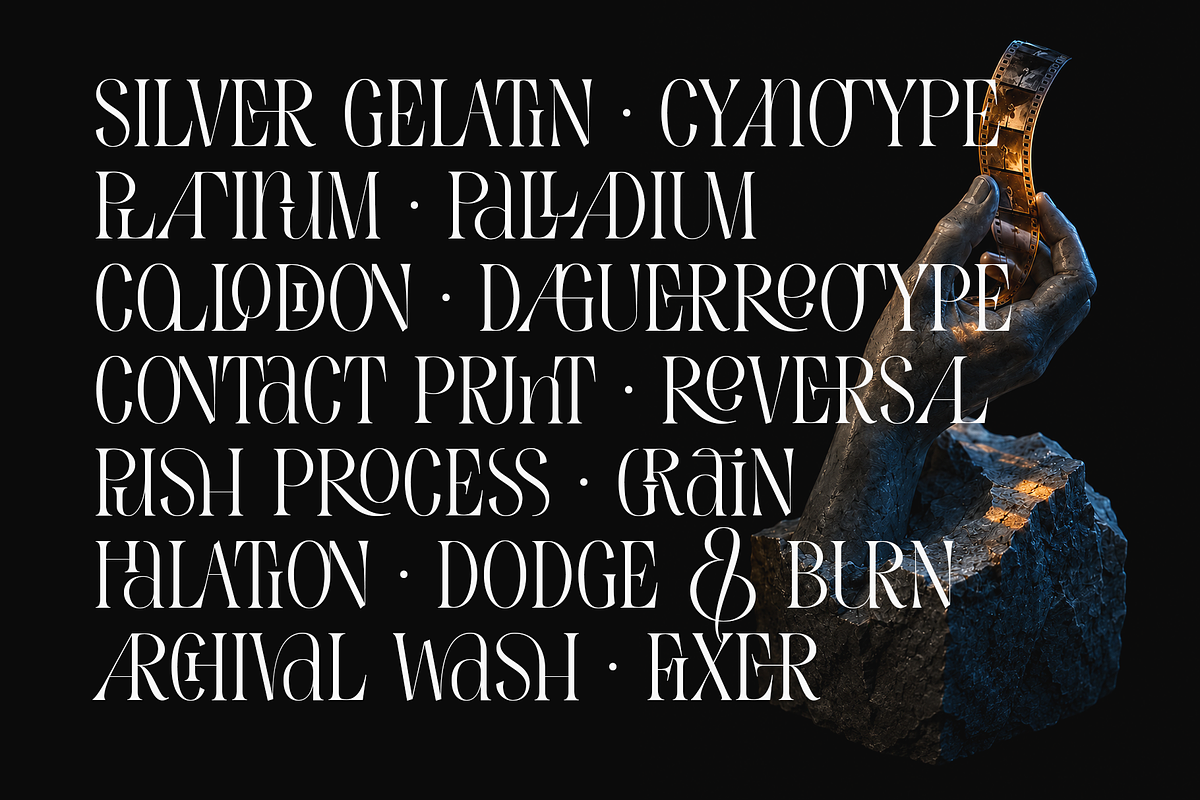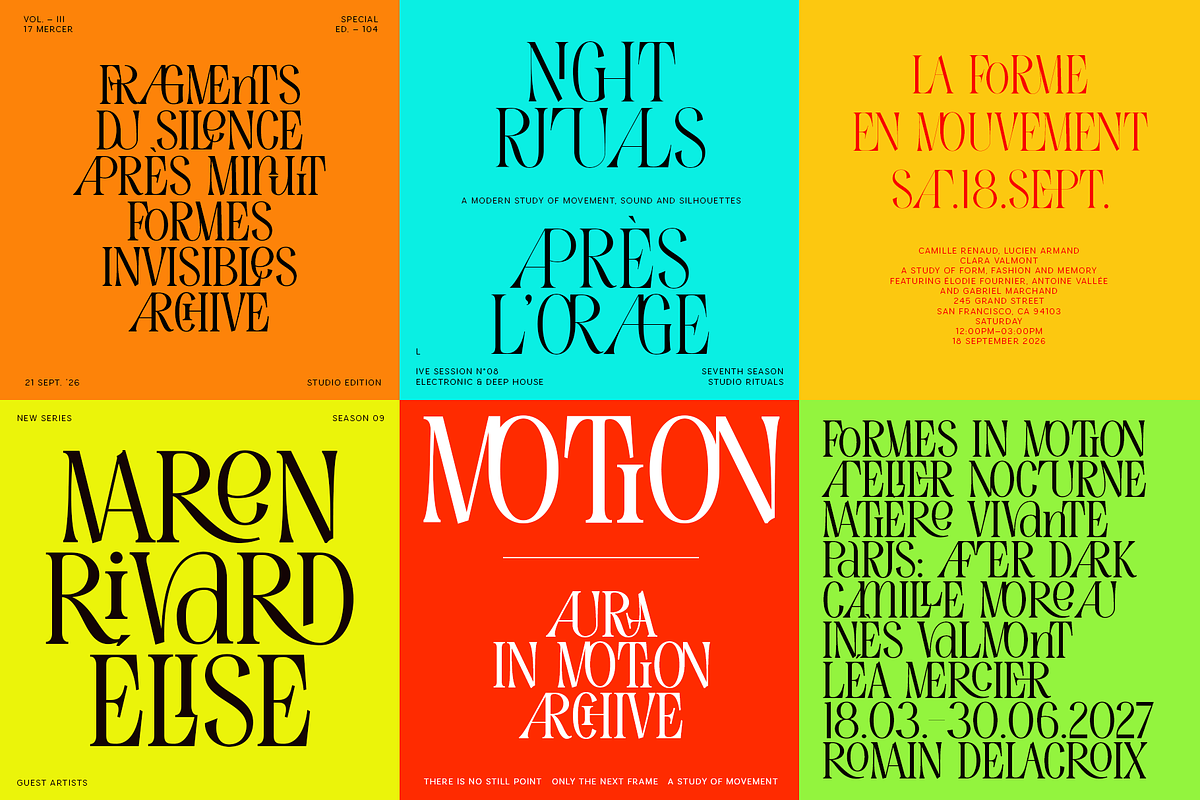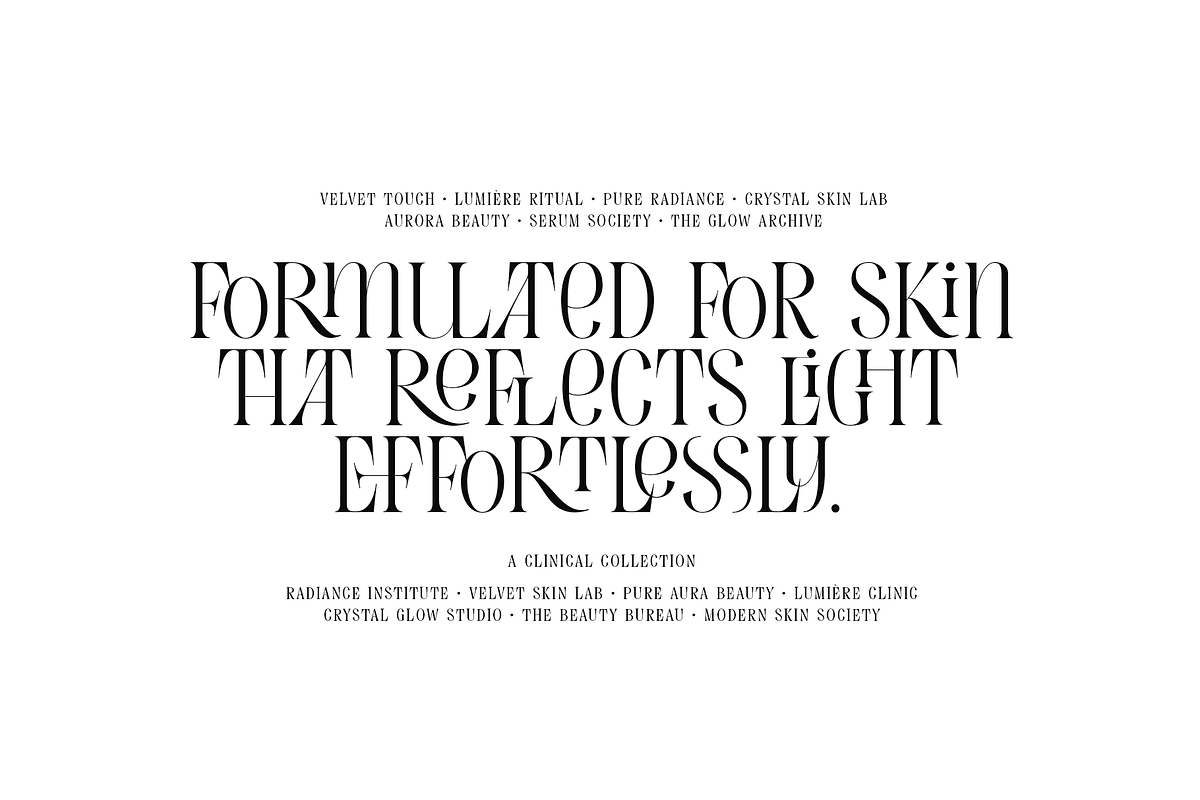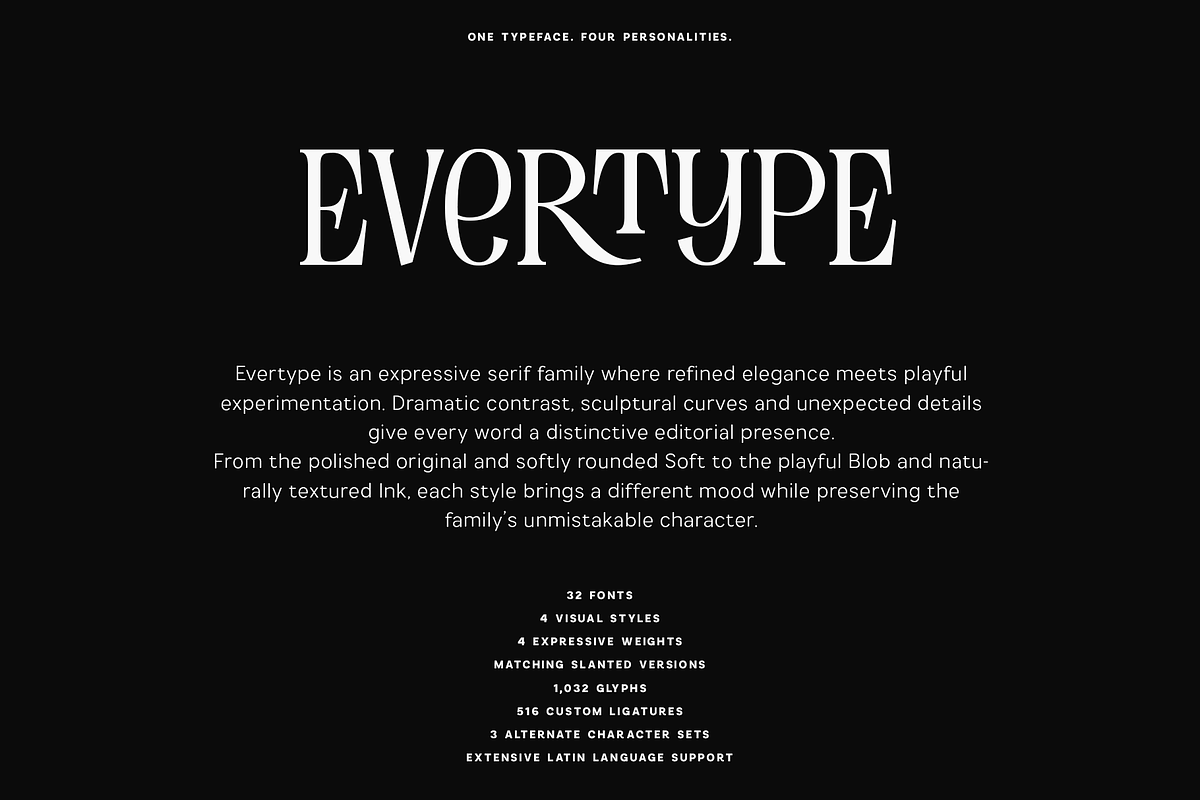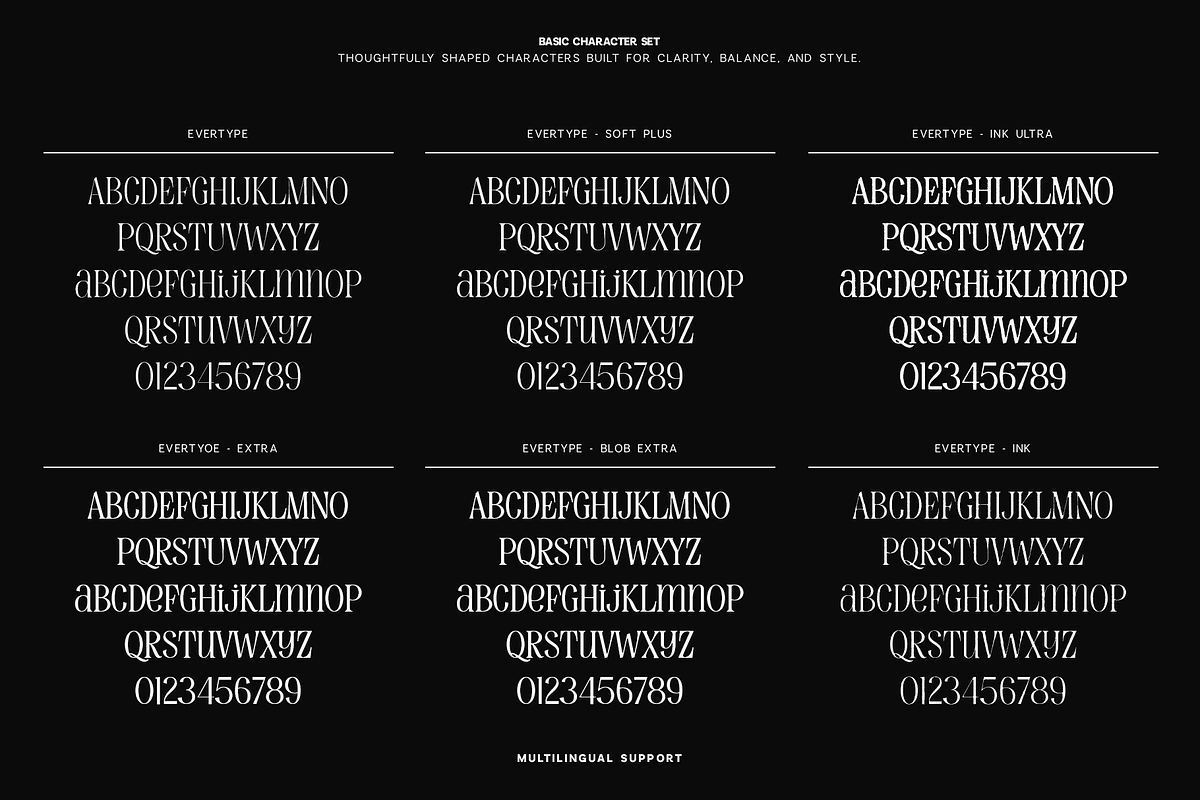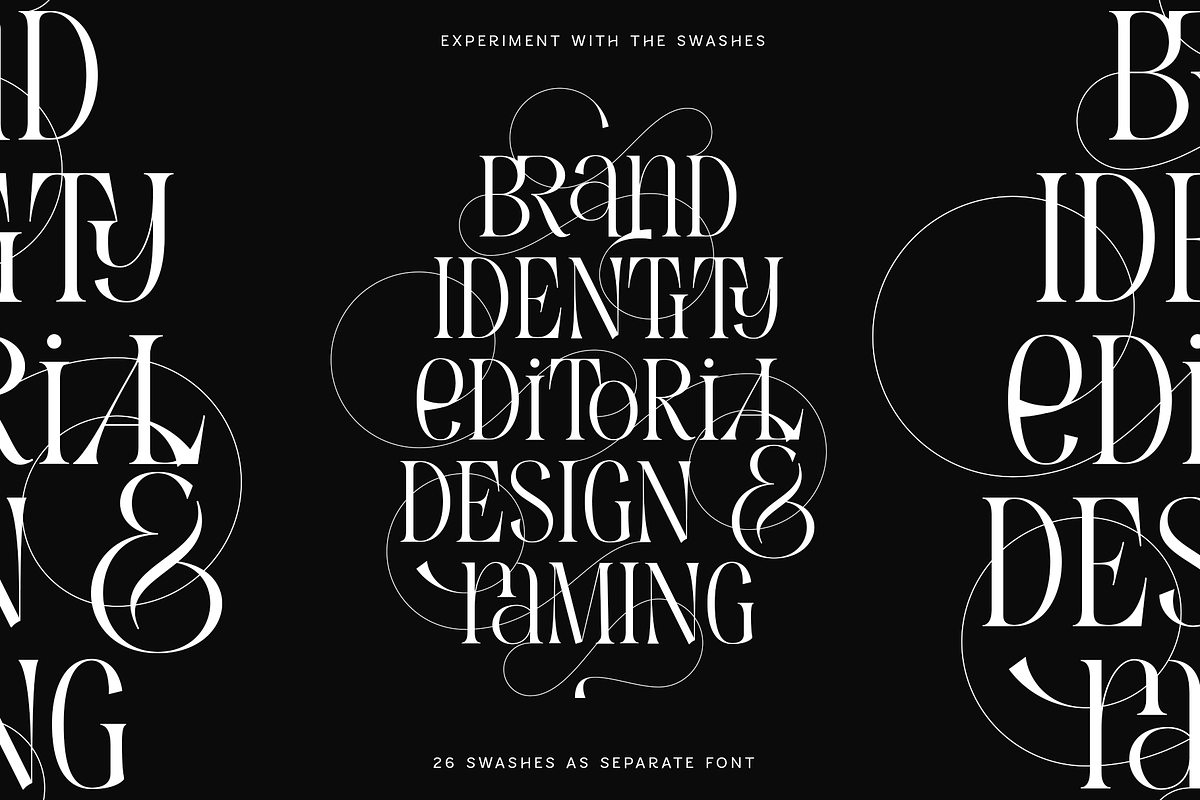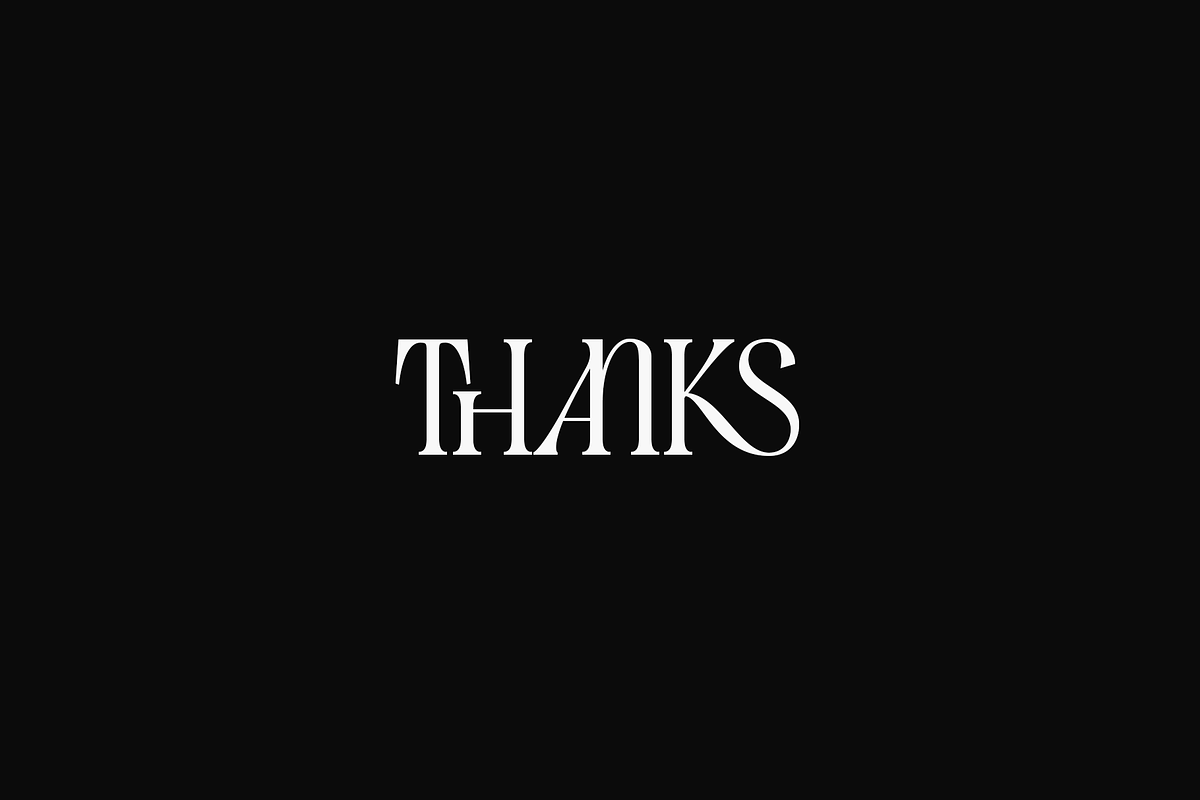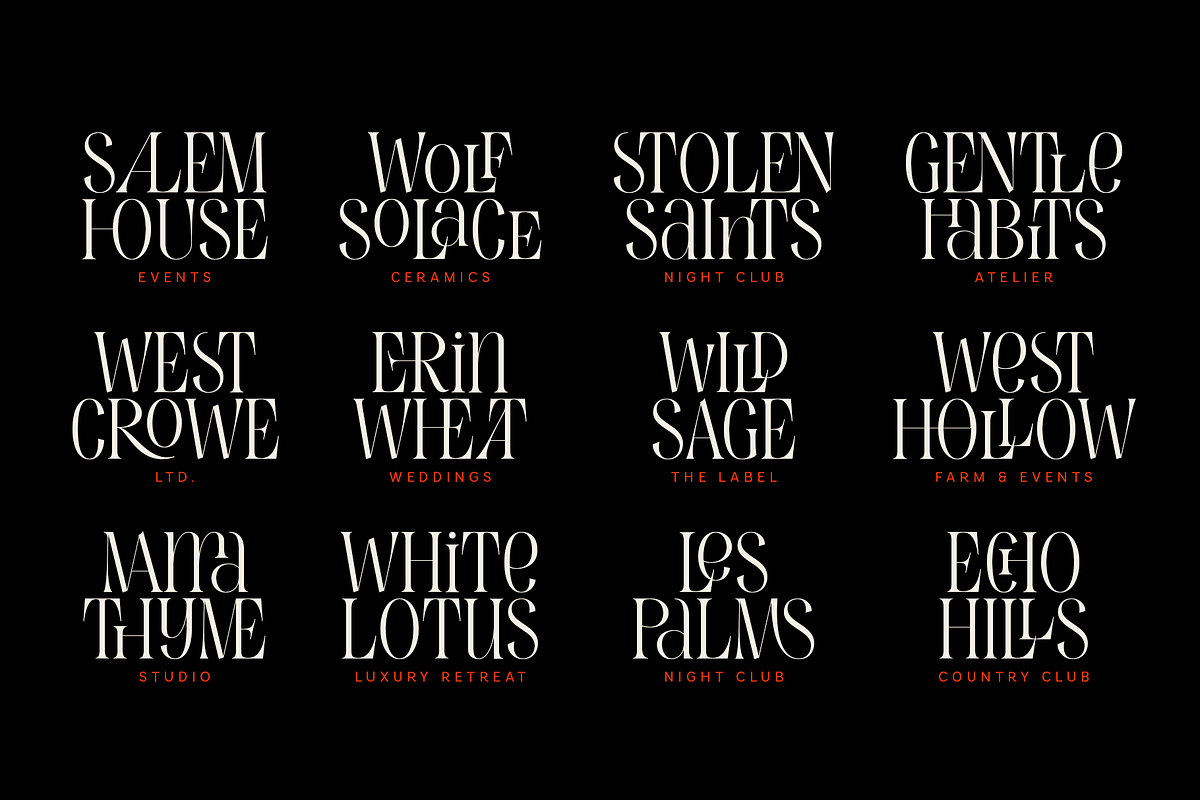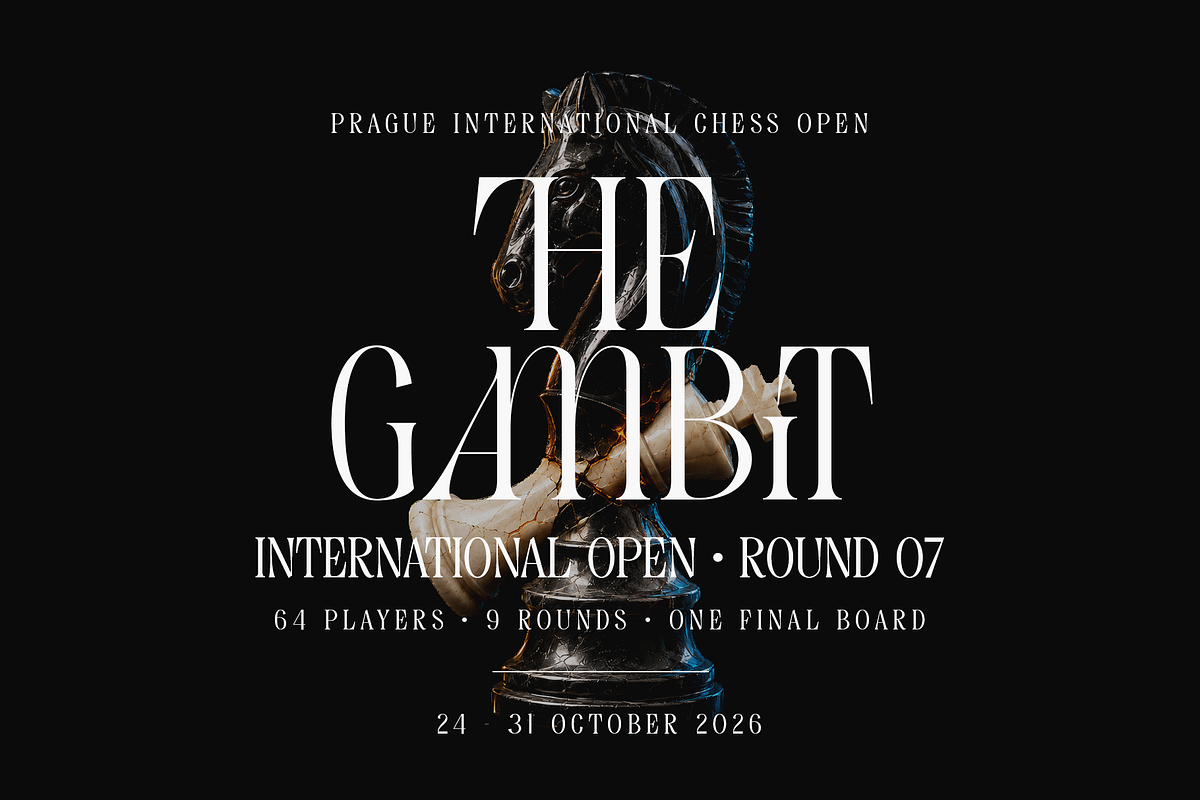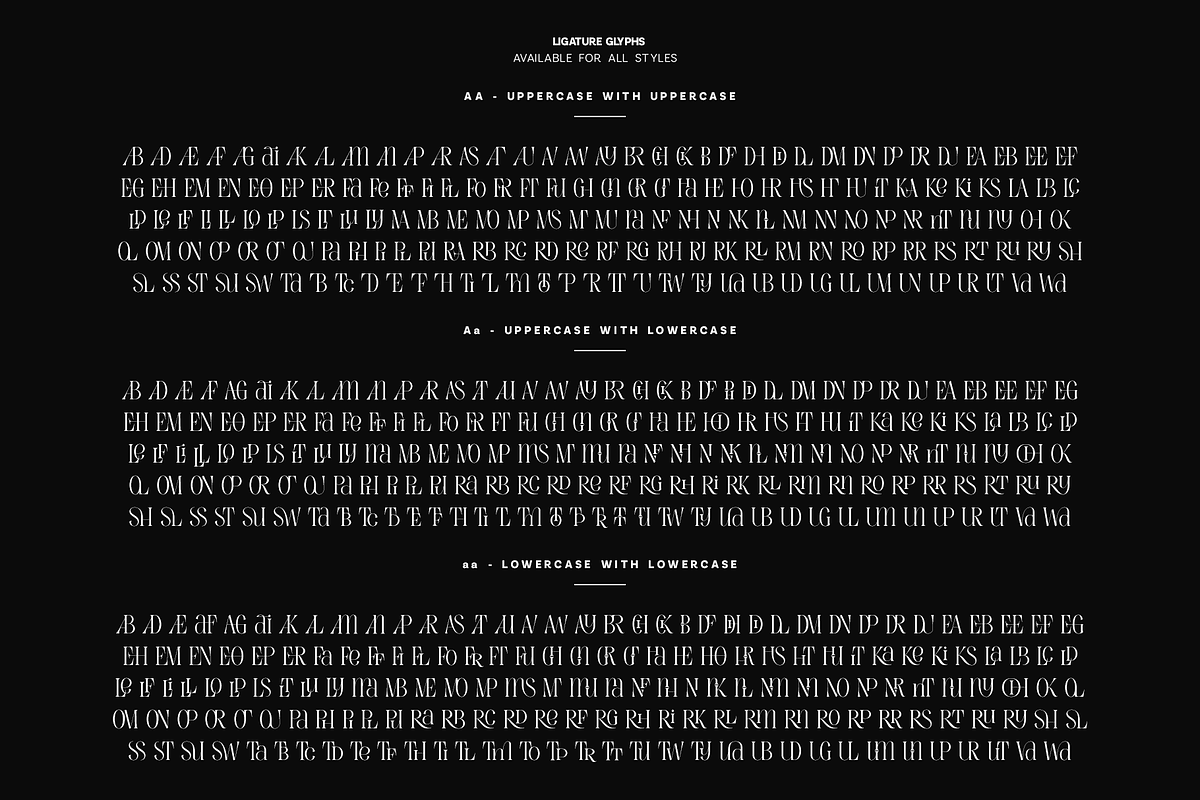
Evertype - Display Serif Font Family
Evertype is an expressive display serif font family where refined editorial elegance meets playful experimentation. Dramatic contrast, sculptural curves and unexpected details give every word a distinctive, contemporary presence.
The family features four unique visual styles: the polished Original, softly rounded Soft, playful Blob and naturally textured Ink. Each personality comes in four expressive weights - Regular, Plus, Extra and Ultra - with matching slanted versions for added movement and creative flexibility.
With 32 fonts, 1,032 glyphs, 516 custom ligatures and three alternate character sets, Evertype offers countless ways to create typography that feels individually composed. A separate collection of 26 decorative swashes adds another expressive layer to headlines, logos and wordmarks.
Evertype is ideal for:
• Editorial and magazine design • Fashion and luxury branding • Logos and visual identities • Packaging and product design • Posters and advertising • Headlines and statement typography • Invitations and social media graphics
One typeface. Four personalities. Endless possibilities.